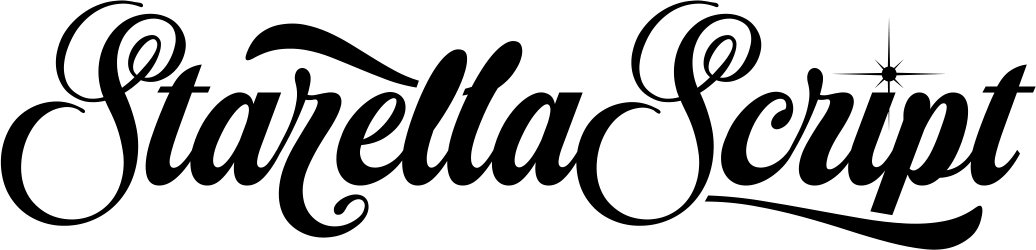
Starella Script Font
Intending to add a classic, creative, and beautiful element to your typography? Starella Script is a natural, stylish, and hand-drawn, script font that has characters with swash tails. Reading it is not easy, but it adds liveliness to your text design and it’s the best and right choice for you!
Apart from the mixed case alphabetical letterforms and punctuation, there aren’t any numbers involved, unfortunately. Logos, headings, books, articles, and branding are a few places to consider trying this whimsical tattoo font.